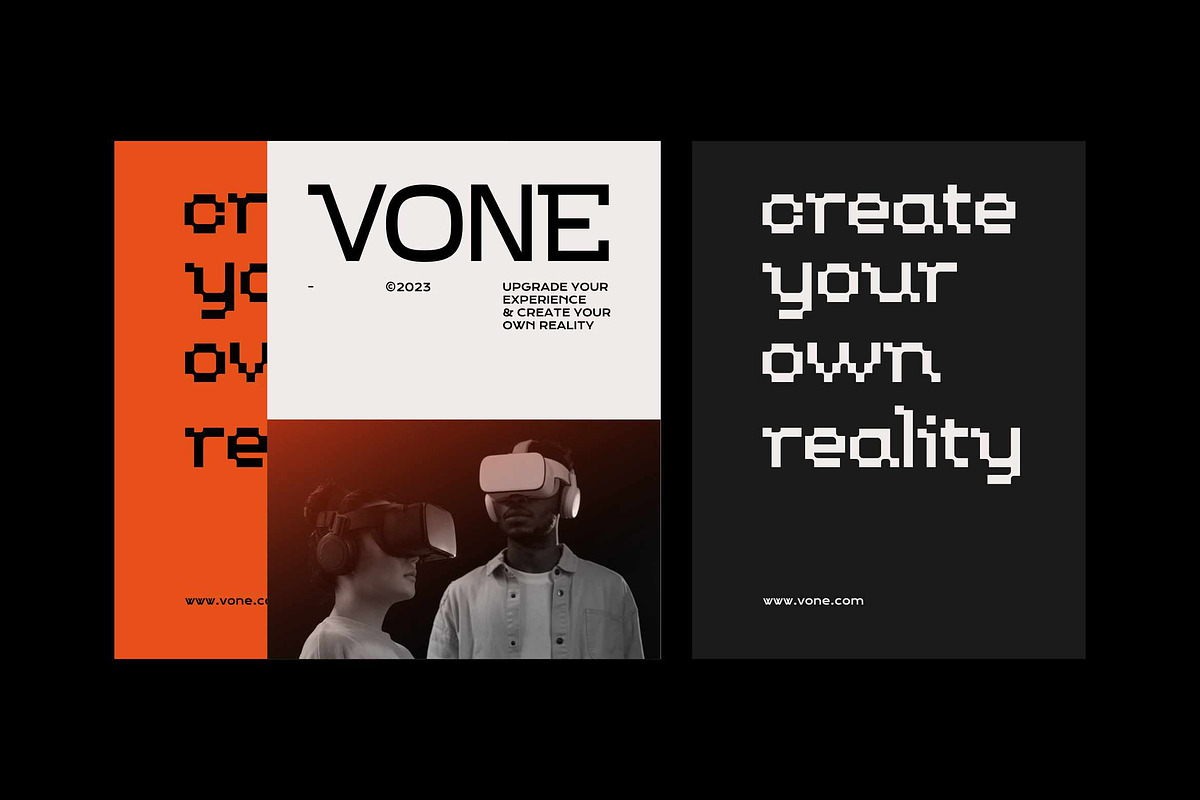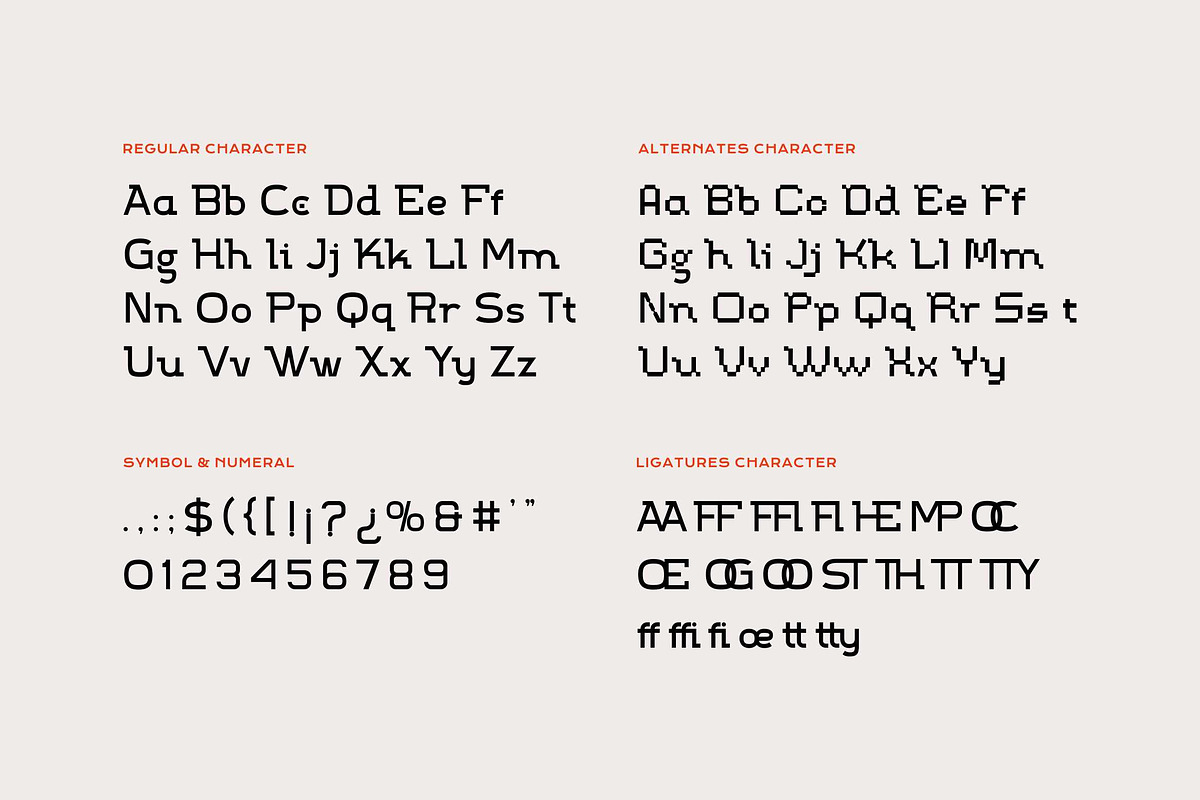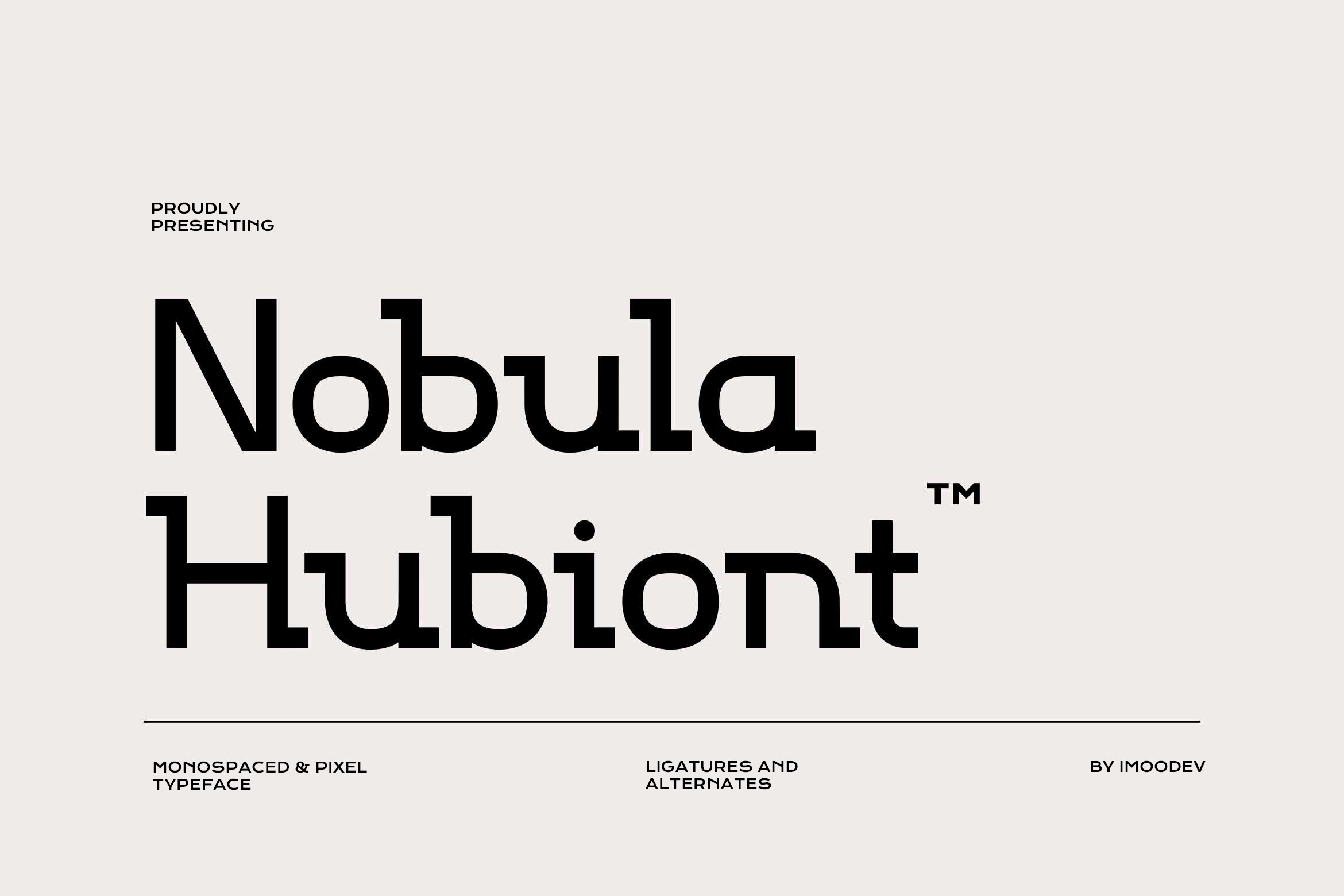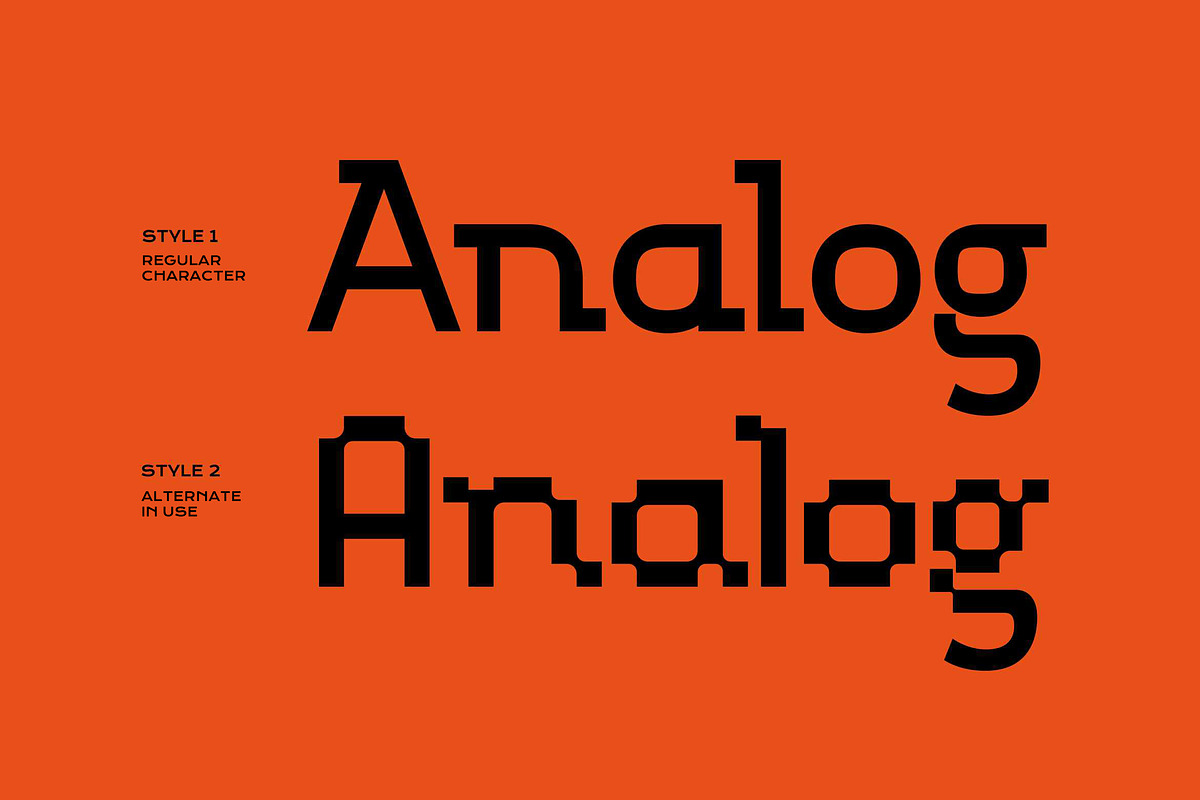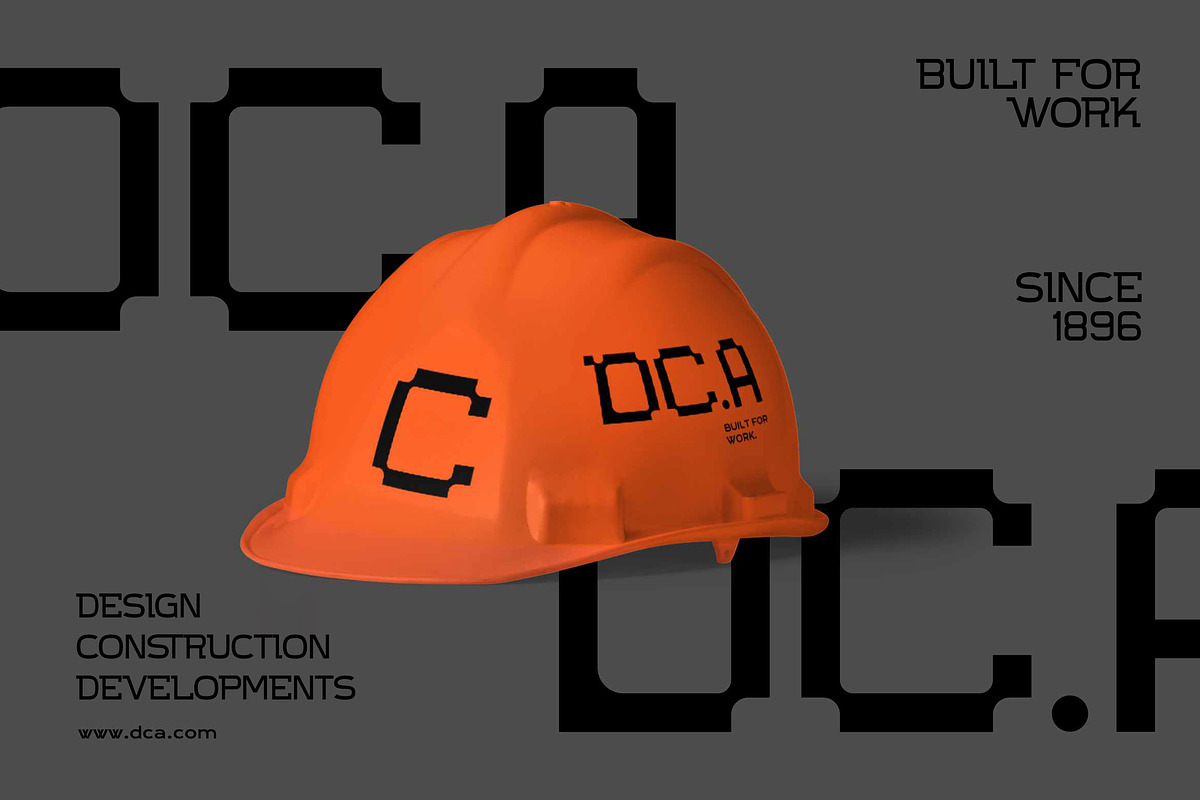
Nobula Hubiont - Monospaced Font
Nobula Hubiont is a modern typeface featuring a clean, monospaced design, specifically crafted for digital displays and programming environments.
The alternate font introduces a distinctive twist, drawing inspiration from the edgy, pixelated Y2K fonts. It seamlessly blends the futuristic aspects with the nostalgic charm of pixel art.
Nobula Hubiont is ideally suited for designs that delve into the realms of space, techno aesthetics, gaming, and futuristic creativity. Whether you are creating a sci-fi poster, a gaming interface, or artwork inspired by pixel art, this font is versatile for various applications including digital interfaces, simple coding, labels, editorials, tickets, logos, pixel games, 8-bit game interfaces, and more.